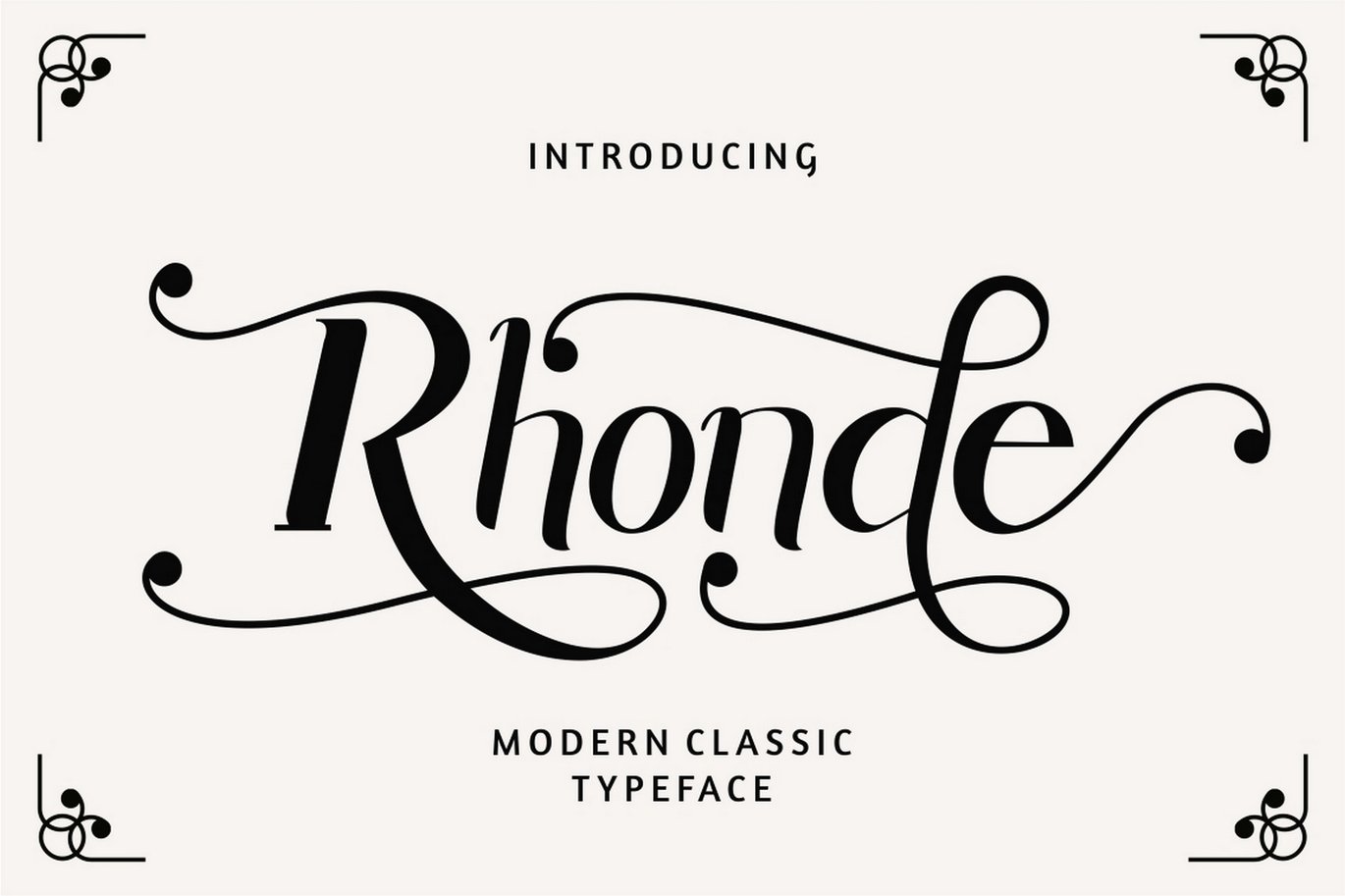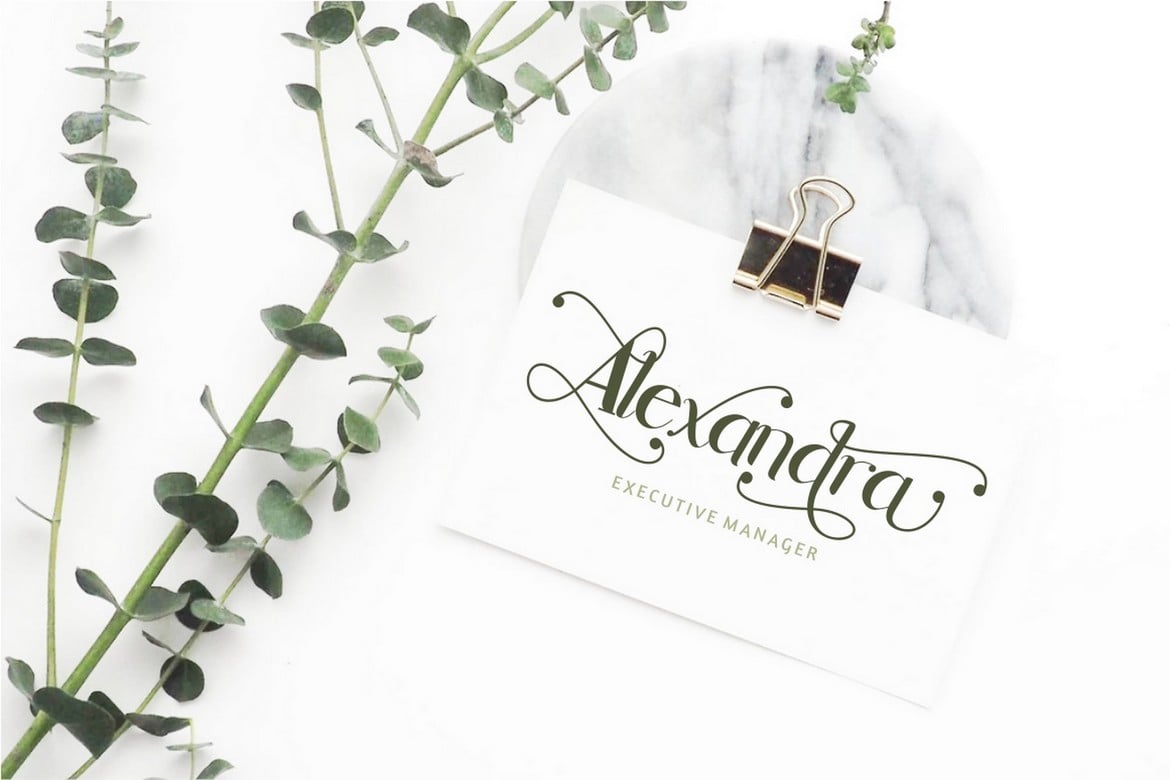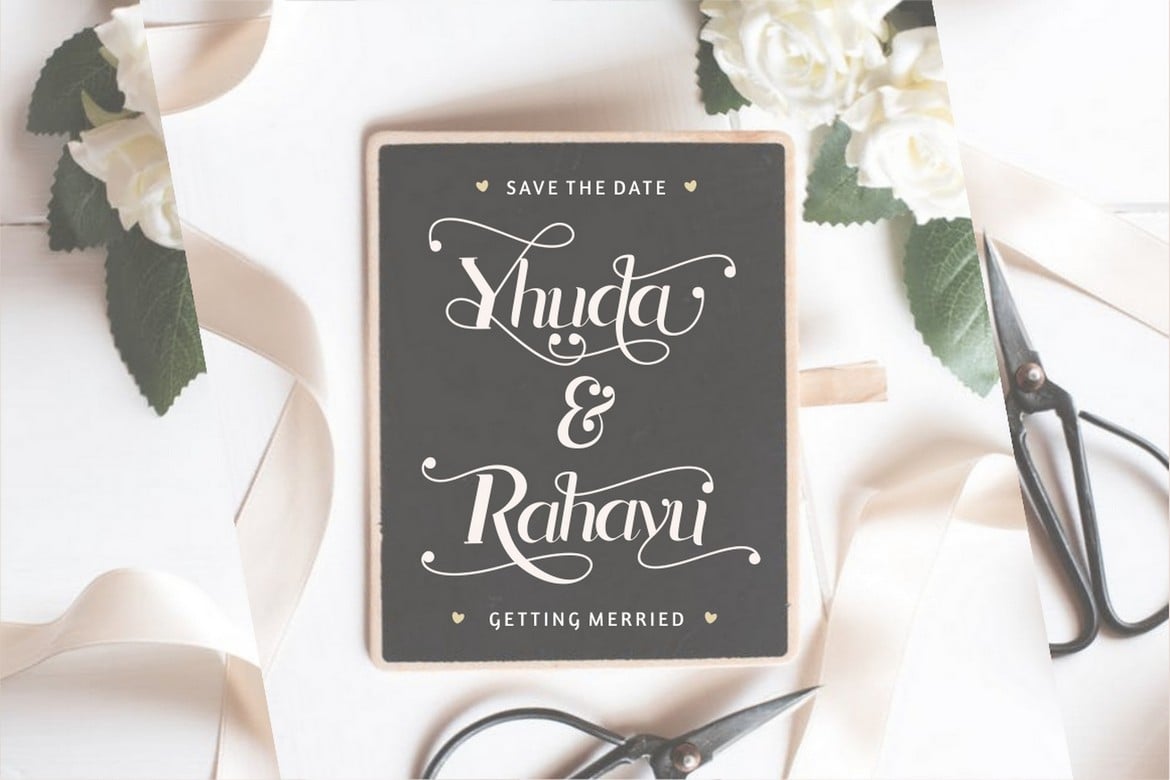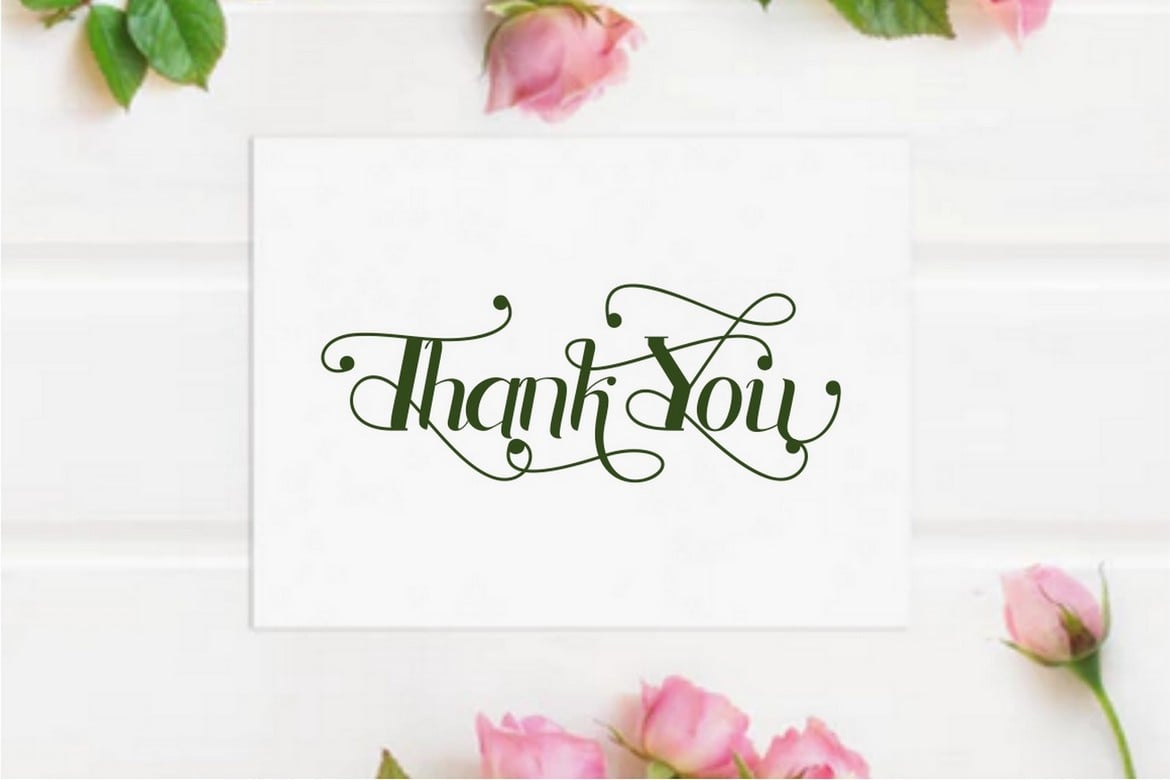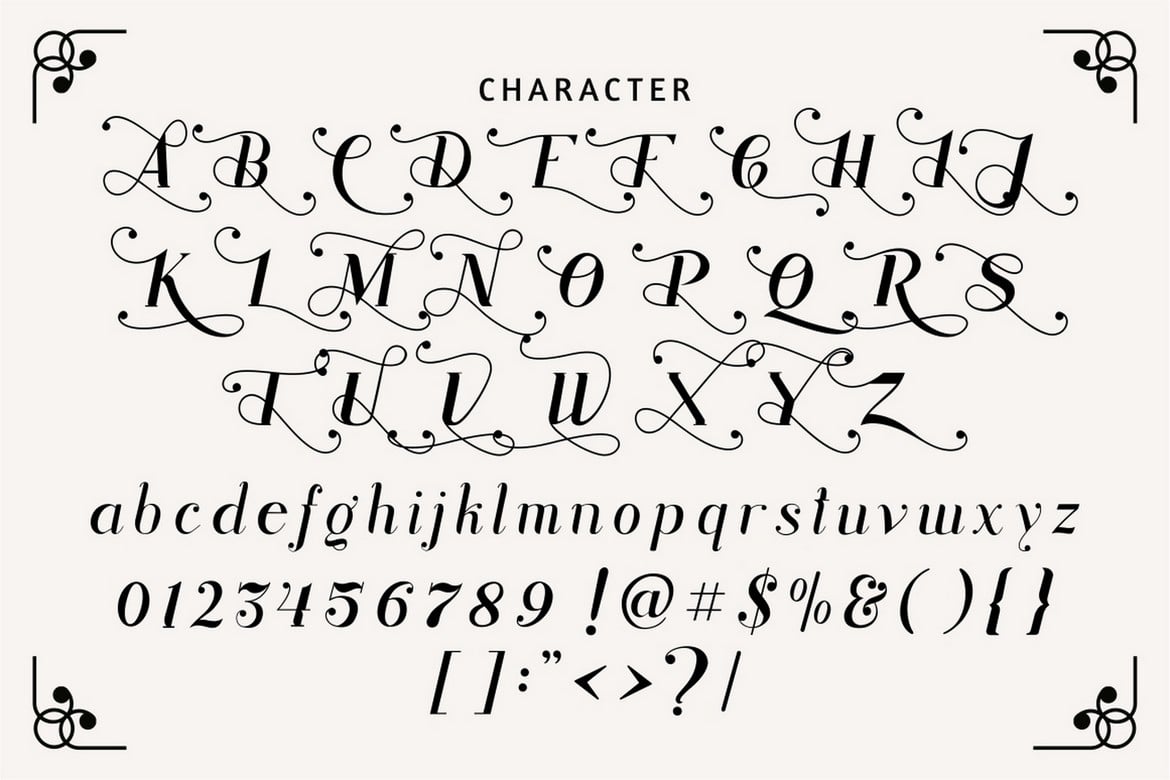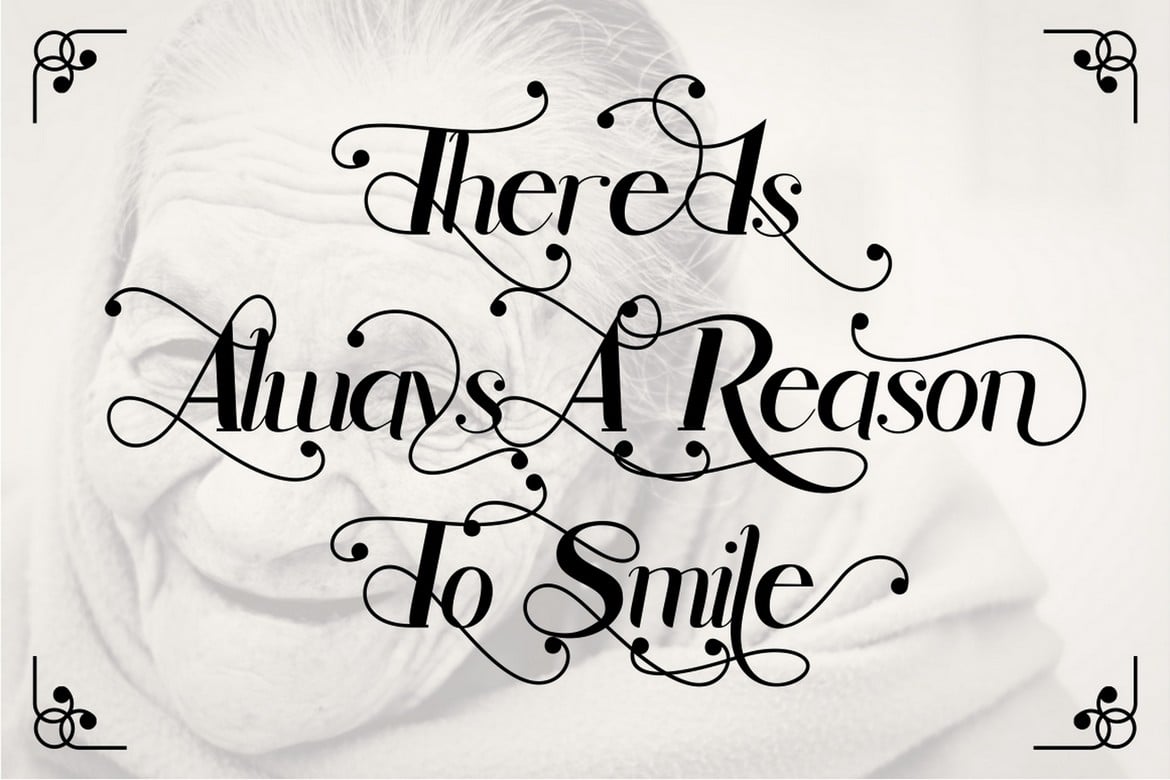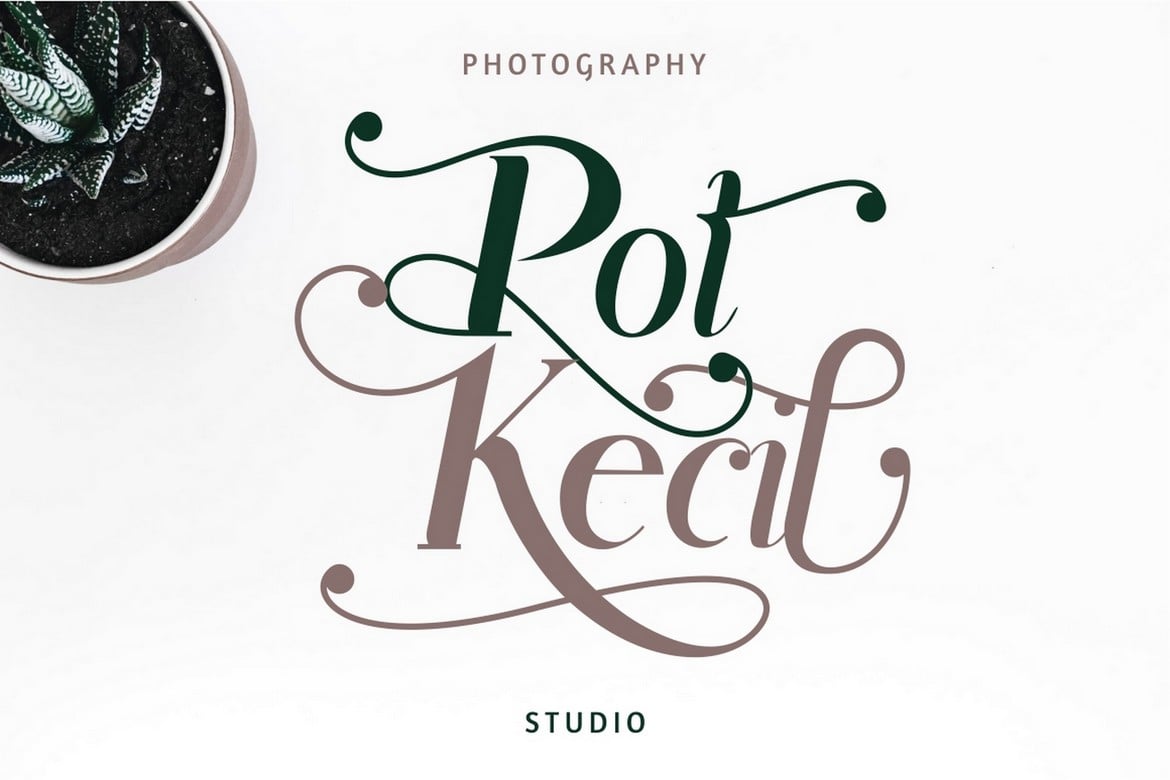
Rhonde – Modern Classic Font
** Rhonde **
Rhonde is a modern classic typeface with large set of alternative uppercase and lowercase letters with swashes that can be combined to create unique and beautiful designs.